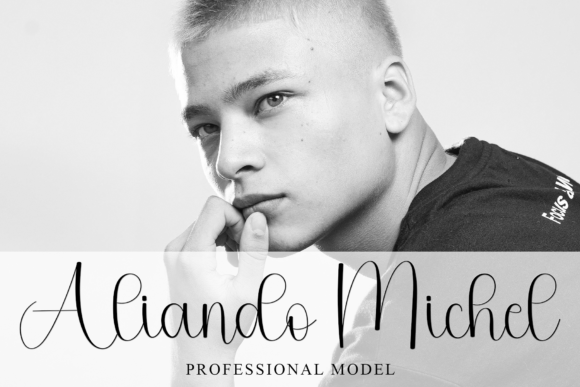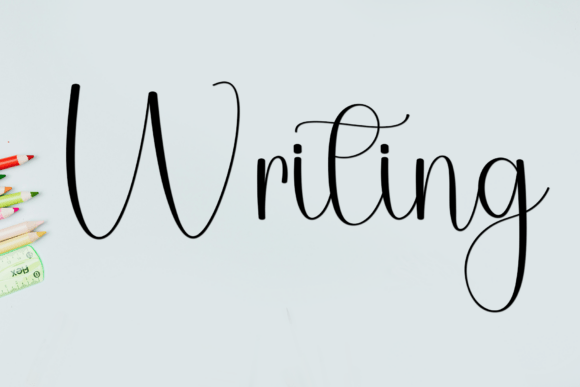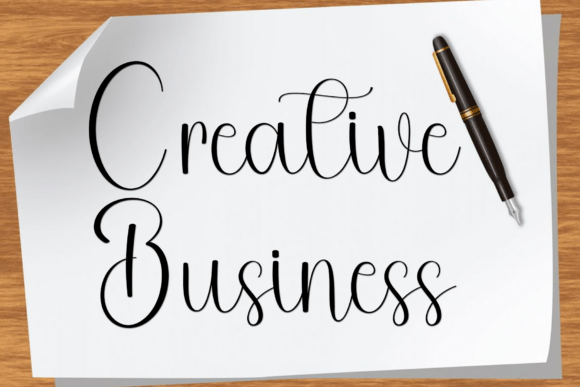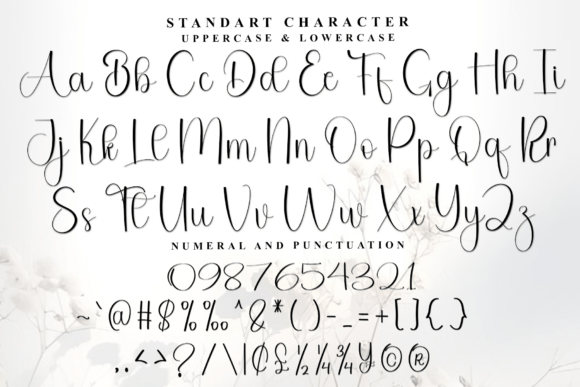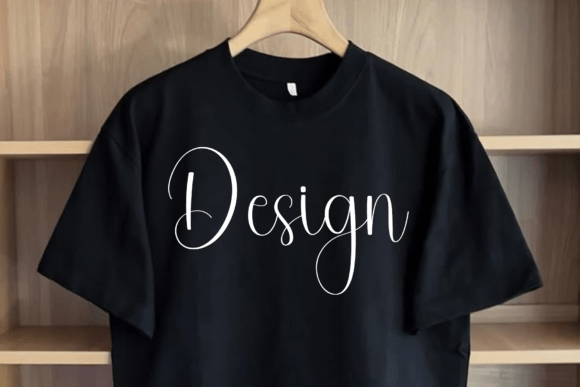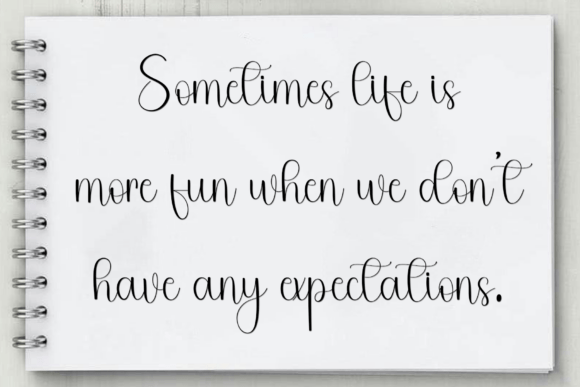
Introducing Angela Handmade Font: The Perfect Holiday Companion for Designers and Crafters
As the holiday season approaches, designers and crafters are on the lookout for the perfect typography to add a touch of magic to their projects. Look no further than Angela Handmade Font, a festive and merry typeface that captures the spirit of the holiday season. With its decorative elements and whimsical flair, this font is sure to bring a cheerful and nostalgic ambiance to your words.
Angela Handmade Font is a beautifully crafted typeface that is perfect for adding a touch of enchantment to your designs. Its decorative elements and whimsical flair make it an ideal choice for holiday-themed projects, such as greeting cards, gift tags, and festive posters. The font’s playful and cheerful vibe is sure to put a smile on the faces of your audience, making it perfect for designers and crafters who want to create engaging and memorable content.
Whether you’re designing greeting cards, gift tags, or holiday-themed projects, Angela Handmade Font is the perfect companion. The font’s festive and merry vibe is sure to add a touch of magic to your designs, making them stand out from the crowd. With Angela Handmade Font, you can create beautiful and engaging content that captures the spirit of the holiday season.
One of the best things about Angela Handmade Font is that it’s PUA encoded, which means you can access all of the amazing glyphs and ligatures with ease. This makes it easy to add decorative elements and special characters to your designs, giving them an extra touch of personality and flair. With PUA encoding, you can unlock the full potential of Angela Handmade Font and take your designs to the next level.
What Makes Angela Handmade Font Special?
So, what makes Angela Handmade Font so special? Here are just a few things that set it apart:
- Festive and Merry Vibe: Angela Handmade Font has a playful and cheerful vibe that’s perfect for the holiday season.
- Decorative Elements: The font features decorative elements and whimsical flair that add a touch of enchantment to your designs.
- PUA Encoded: With PUA encoding, you can access all of the amazing glyphs and ligatures with ease.
- Perfect for Holiday Projects: Angela Handmade Font is perfect for holiday-themed projects, such as greeting cards, gift tags, and festive posters.
Tips for Using Angela Handmade Font
Here are a few tips for using Angela Handmade Font in your designs:
- Use it for Headings: Angela Handmade Font is perfect for headings and titles, where you want to make a bold and festive statement.
- Add Decorative Elements: Use the font’s decorative elements and glyphs to add a touch of personality and flair to your designs.
- Experiment with Colors: Angela Handmade Font looks great in bold and bright colors, so don’t be afraid to experiment and find the perfect hue for your design.
Angela Handmade Font is a beautifully crafted typeface that’s perfect for designers and crafters who want to add a touch of magic to their holiday projects. With its festive and merry vibe, decorative elements, and PUA encoding, this font is sure to bring a cheerful and nostalgic ambiance to your words. So why wait? Download Angela Handmade Font today and let your typography shine with the magic of Beautiful Font!
Whether you’re a designer or crafter, Angela Handmade Font is the perfect companion for the holiday season. So go ahead, get creative, and make your designs shine with the magic of Angela Handmade Font!